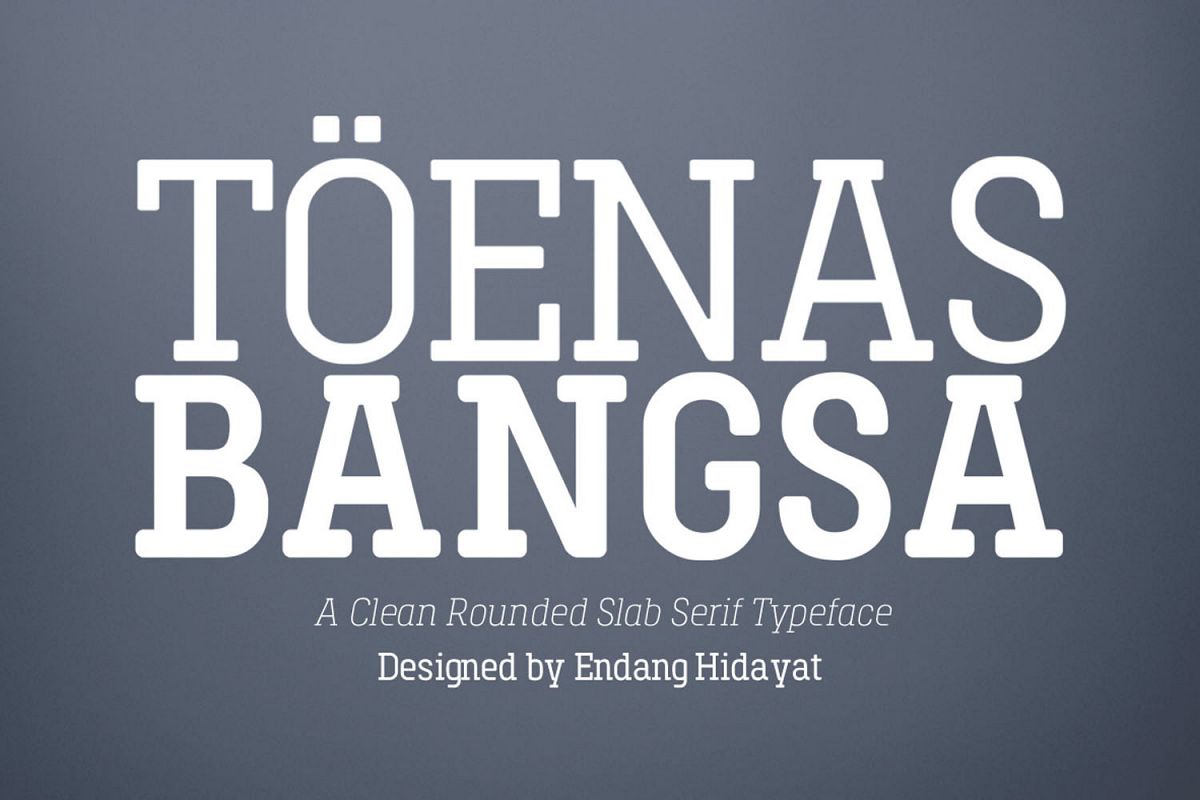
Toenas Bangsa Slab
Designed and built in Jakarta, Indonesia by Endang Hidayat (Bang Kumis
Typefoundry). Toenas Bangsa Slab is a clean rounded slab-serif type
family. It uses clean lines and smooth round curves for a modern clean
look. Comprising of 6 individual styles from Light to Bold, with
accompanying beautiful italics. Toenas Banga Slab is the perfect fit for
branding, headlines, print, and application text.